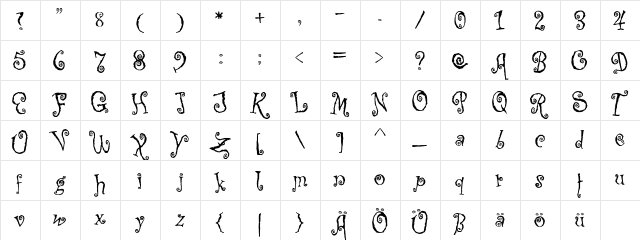
Corps-Script Regular
| Foundry | Otto Maurer |
| Designer | Otto Maurer |
Design Context for Corps-Script Typeface
Corps-Script flows with the natural rhythm of handwritten lettering, making it ideal for designs that call for warmth and personal expression.
Font Pairing: Combine Corps-Script with a simple geometric sans for maximum contrast — the tension between flowing curves and clean structure is a classic typographic pairing.
Pro Tip: Use Corps-Script for short runs of text — names, titles, or taglines. Extended body copy in script faces tires the eye quickly.